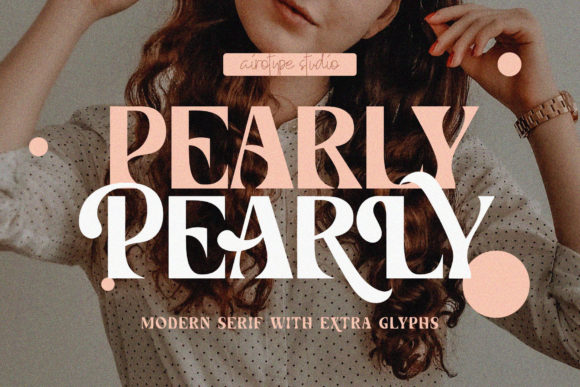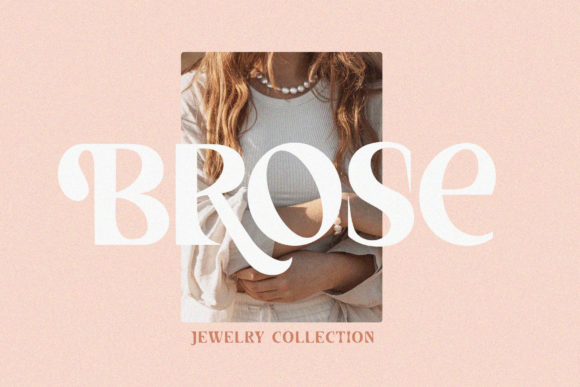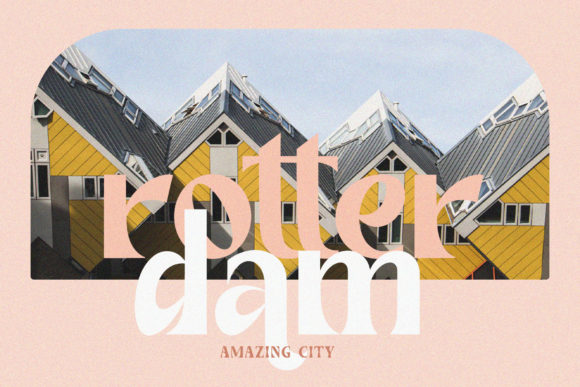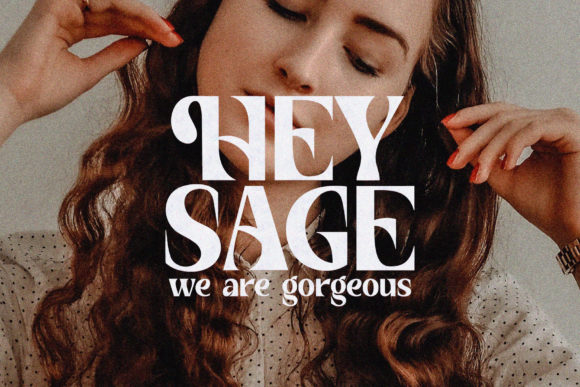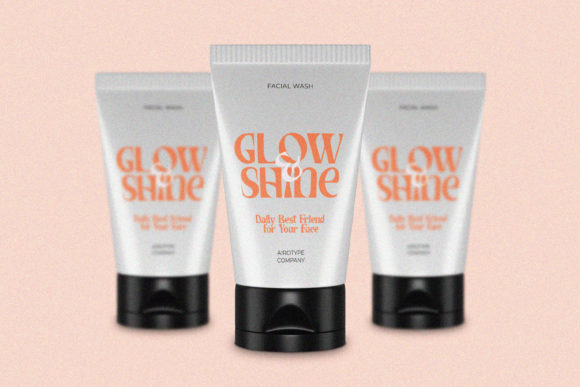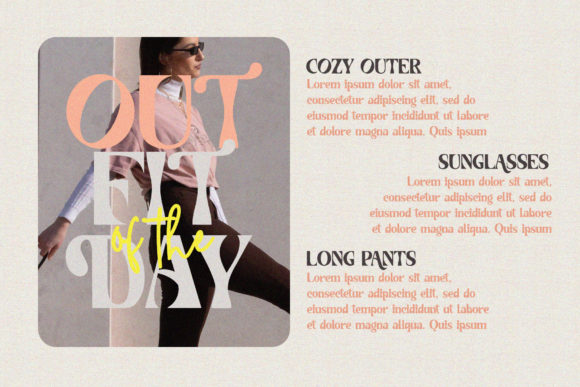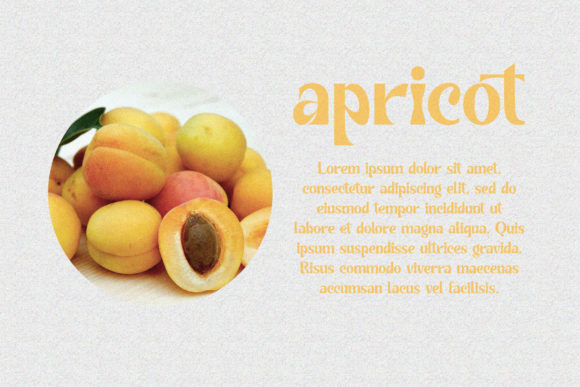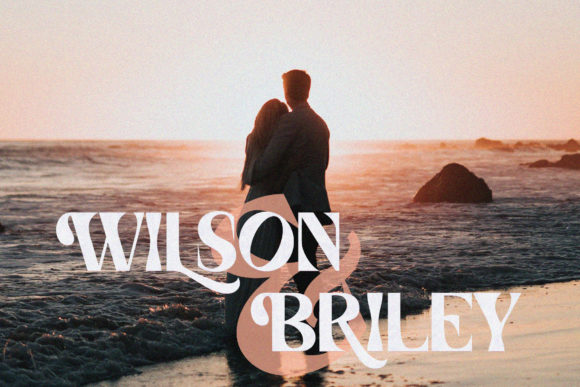
Pearly Font
Pearly is modern serif font with a thick and solid style. It has modern and vintage look.
This font is suitable font for many projects, for modern or even retro vintage design, branding, logo, crafting, sticker, sublimation, wedding invitation, and many more.